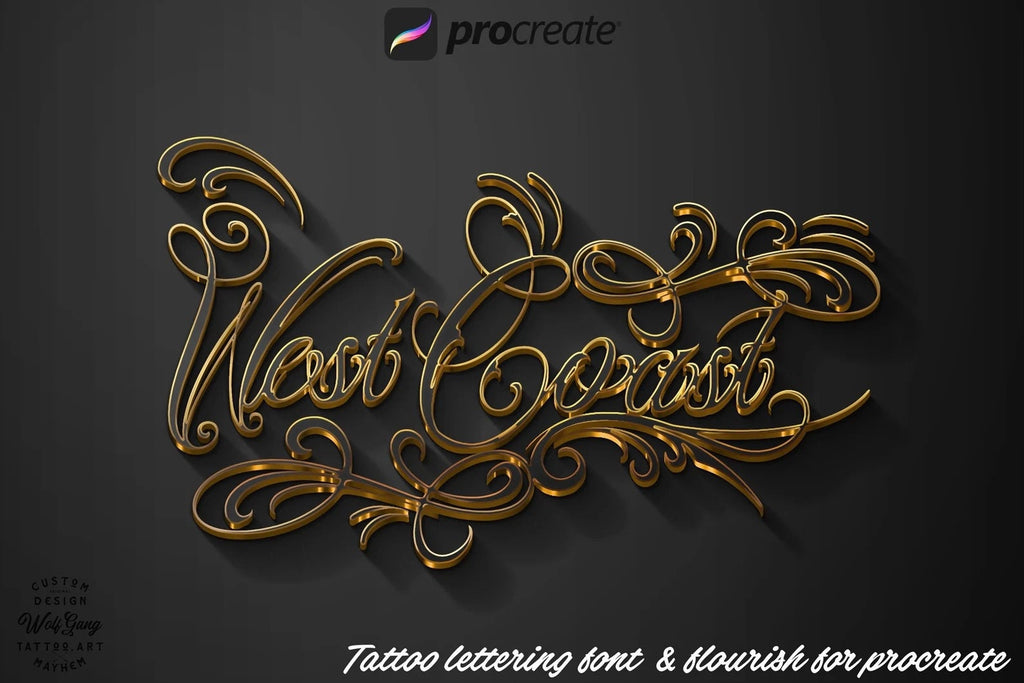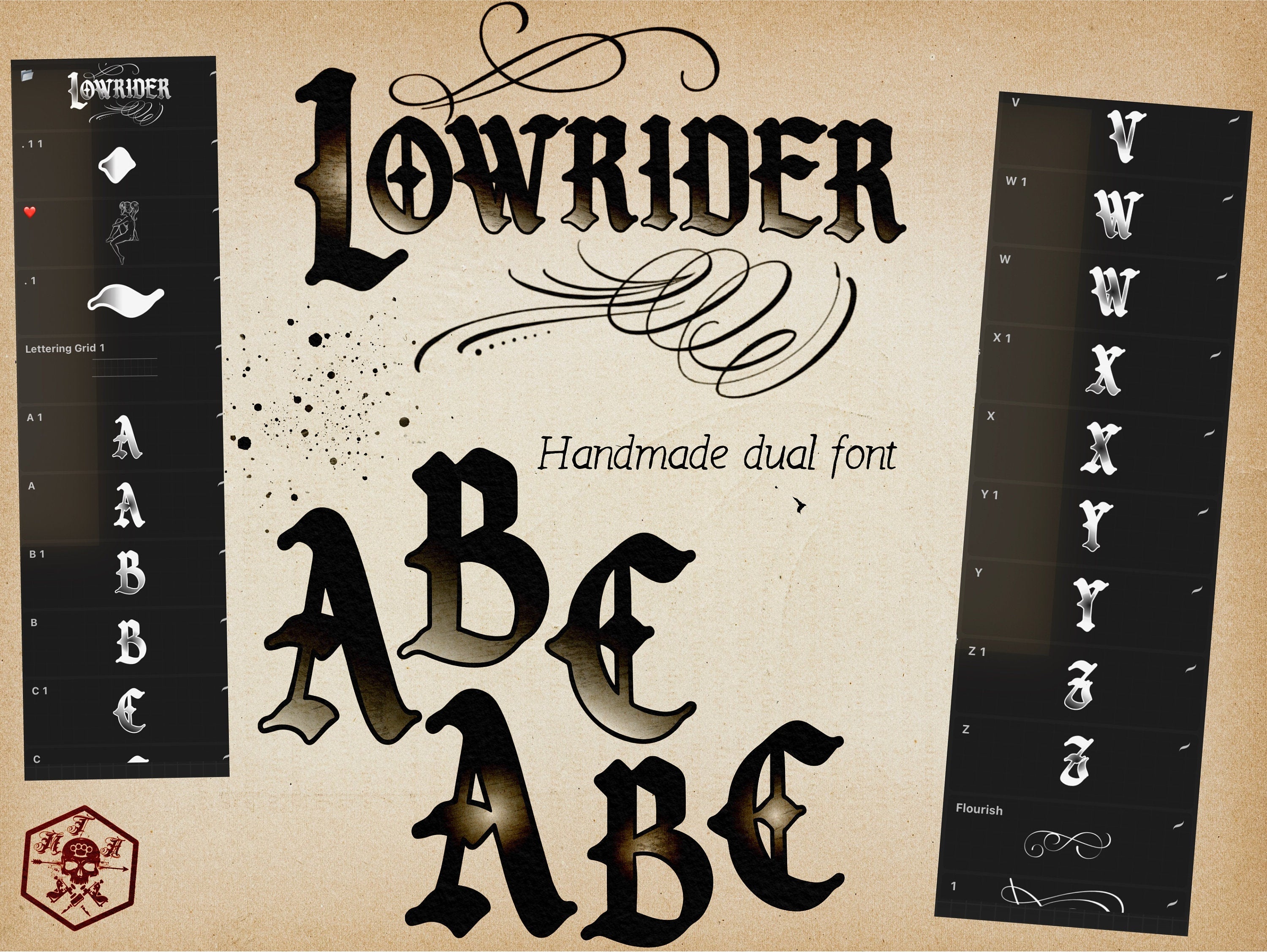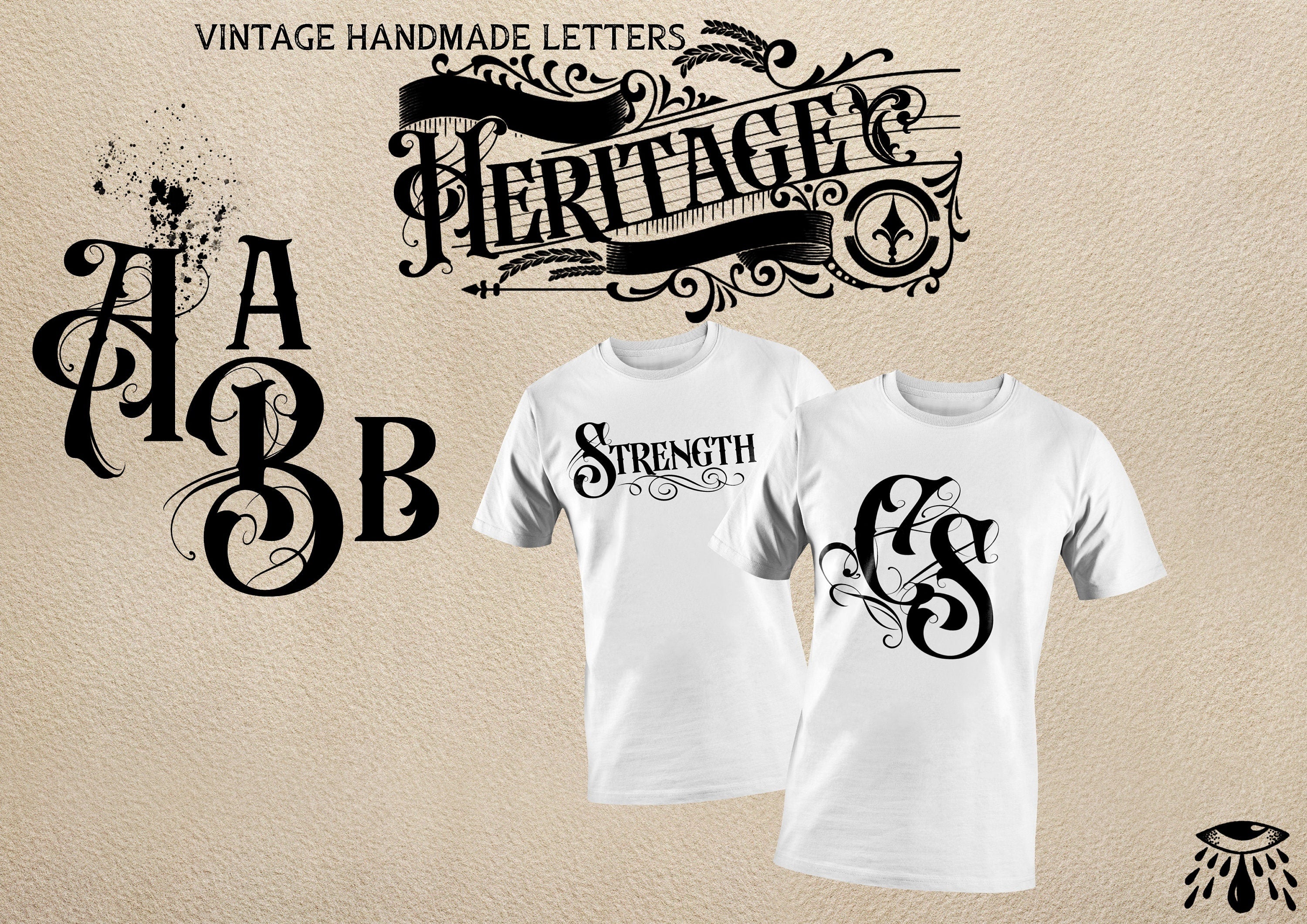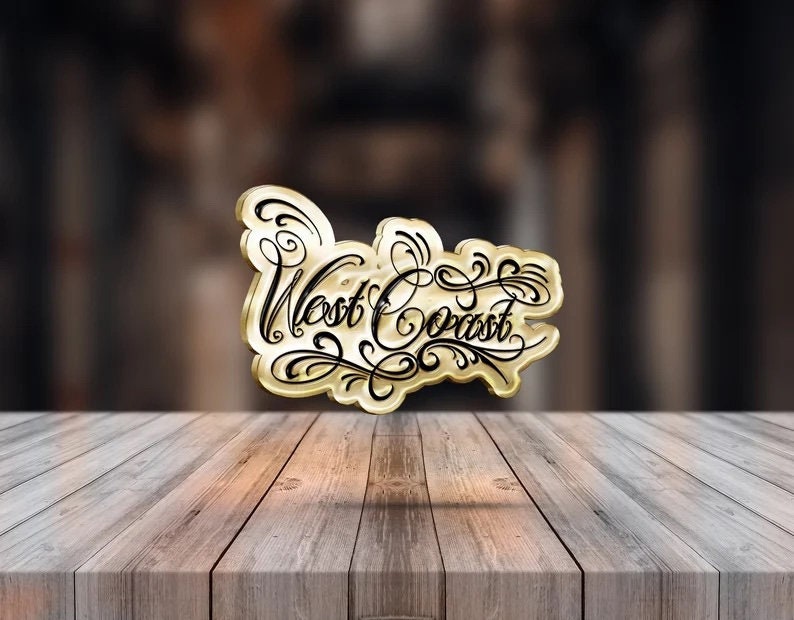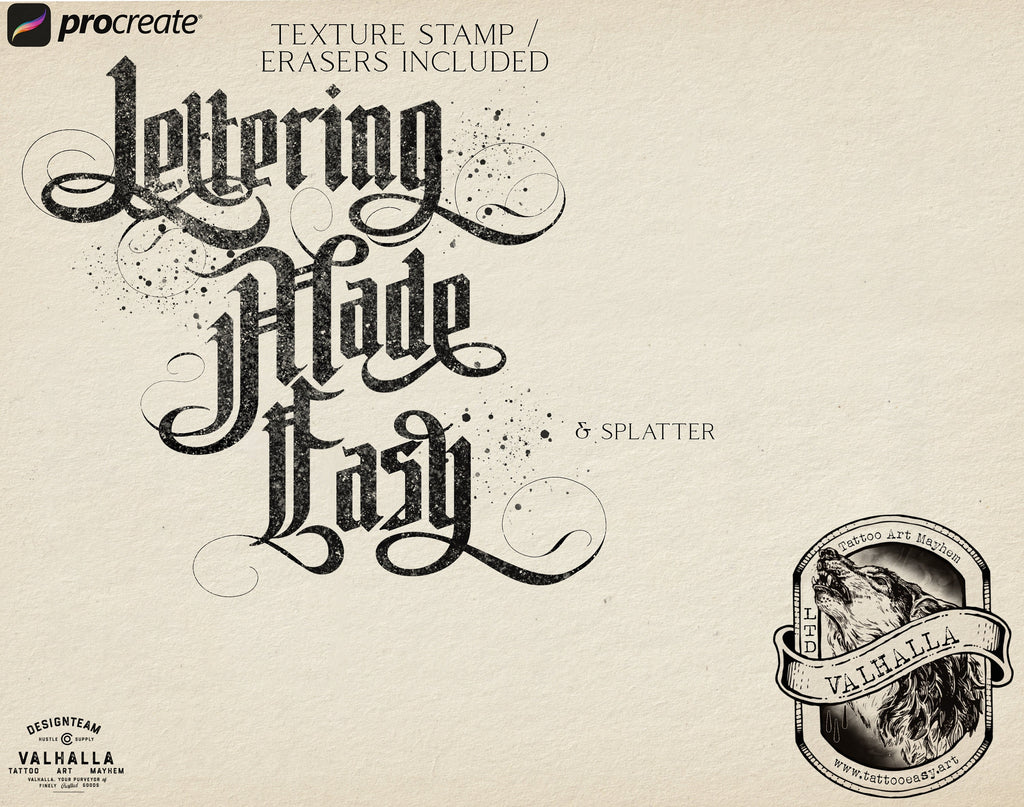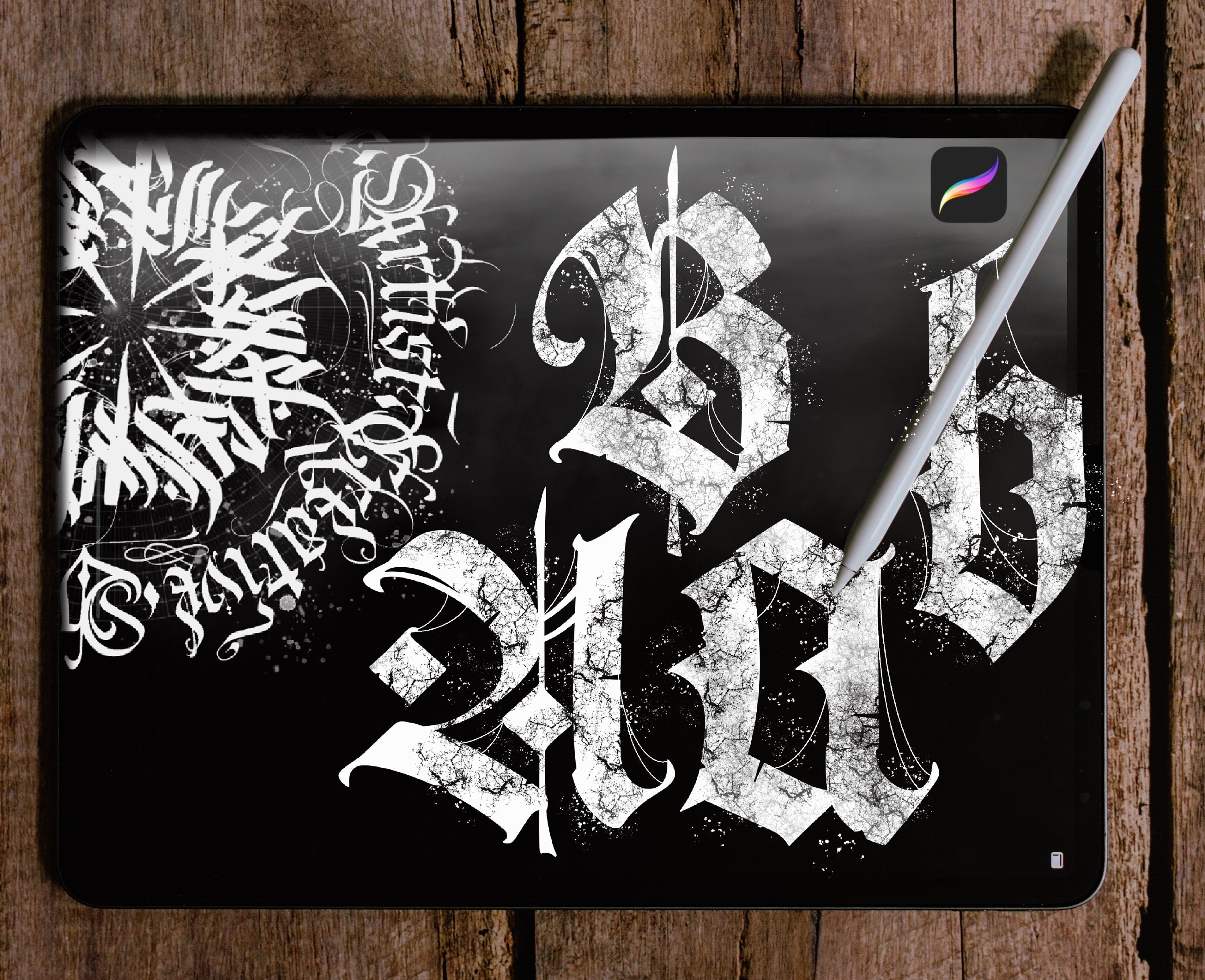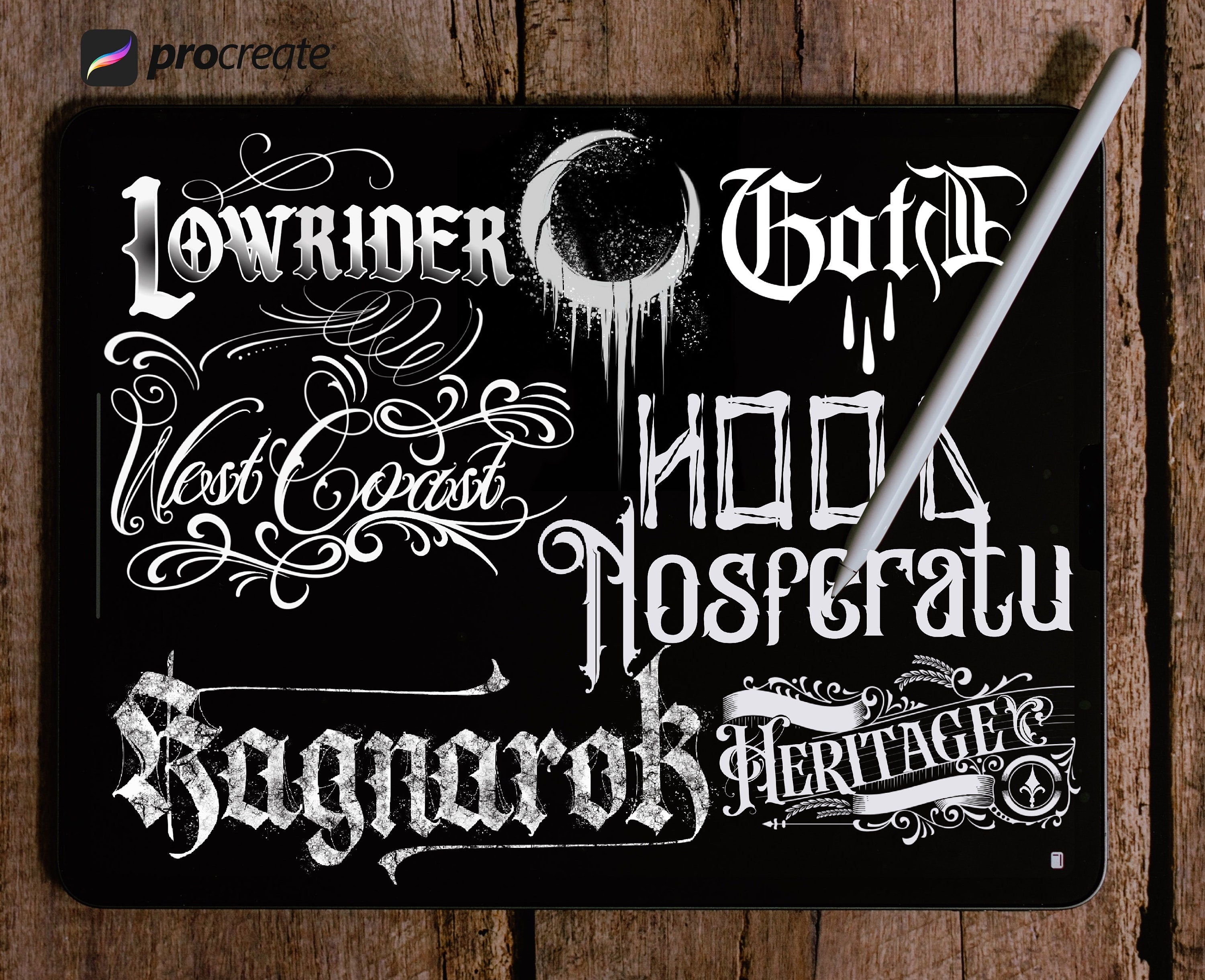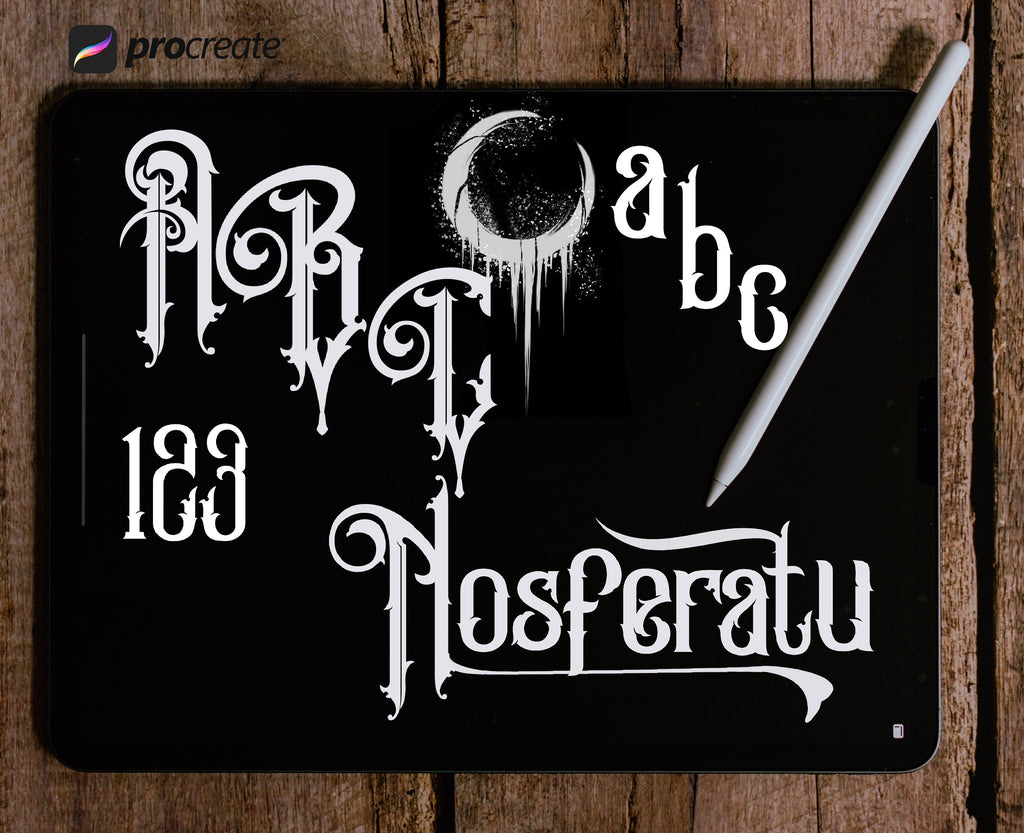
Lettering made easy logo /7 font stamp brushes • handmade letters for Procreate
These fonts are used as brushes ( stamps ) that are used for building up your lettering art in procreate, perfect for logos, tattoos and stuff like that, standard grids are included
7 fun custom fonts and xtras for Procreate
Heritage ~ Swirl capital letters makes cool logo designs, handmade with vectors
Low rider ~ a dual custom font with toned letters from mid and top
Goth ~ Classic goth letters with some variation and Spikey design
Ragnarok ~ handmade, custom, dirty & gritty letters from the north
West coast ~ a Chicano font, clean with playful swirls and very easy to
create beautiful compositions with!
Nosferatu- Old curly goth letters with a modern feel
Hood - clean street shop tattoo letters